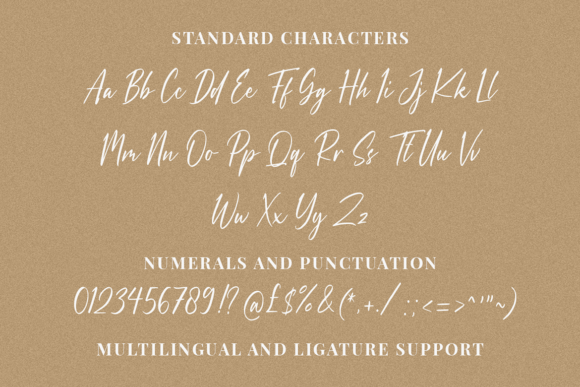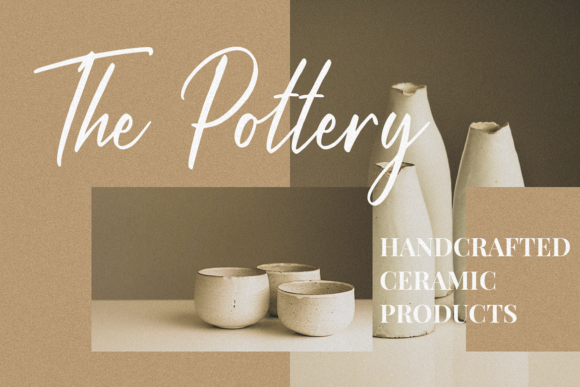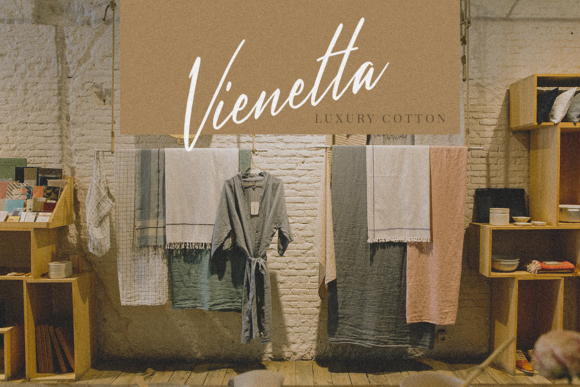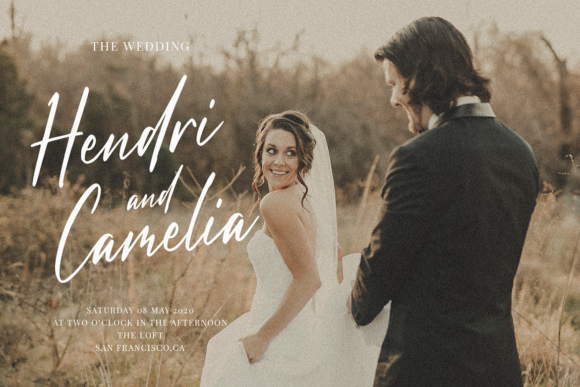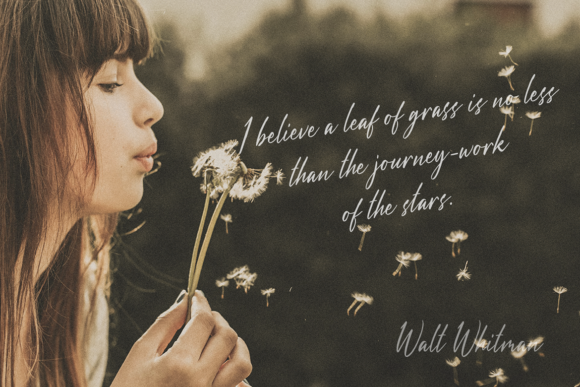
The Dandelion Fall Font: A Designer’s New Best Friend
I still remember the day I stumbled upon the Dandelion Fall font while working on a project for a client who wanted a elegant, yet modern calligraphy font. I had been searching for hours, trying out different fonts, but none seemed to fit the bill. That was until I saw Dandelion Fall – its beautiful, flowing lines and classic calligraphic influences immediately caught my eye. I knew right then and there that I had found the perfect font for the job.
- ✨ Exquisite handwritten design that’s perfect for a wide range of projects
- ✅ Classy calligraphic influences that add a touch of sophistication
- 💫 Contemporary and fresh feel that’s sure to make your designs stand out
- 🎨 Highly versatile and can be used for everything from wedding invitations to branding and packaging
Of course, no font is perfect, and Dandelion Fall is no exception. Here are a few small quirks to keep in mind:
- 🤔 Some users may find the font a bit too ornate for certain projects
- ⚠️ May not be the best choice for body text or long blocks of text due to its decorative nature
A Practical Guide to Using Dandelion Fall
The Story Behind Dandelion Fall
So, where did Dandelion Fall come from? According to the designer, it was inspired by the beauty of nature and the elegance of traditional calligraphy. The goal was to create a font that was both classic and modern, with a unique feel that would stand out in any design.
| Font Name | Dandelion Fall Font |
| Author | Graphue |
| Is Dandelion Fall suitable for body text? | No, Dandelion Fall is a decorative font that’s best suited for headings, titles, and short blocks of text. |
| Does Dandelion Fall support OpenType features? | Yes, Dandelion Fall supports a range of OpenType features, including glyphs, stylistic alternates, and more. |